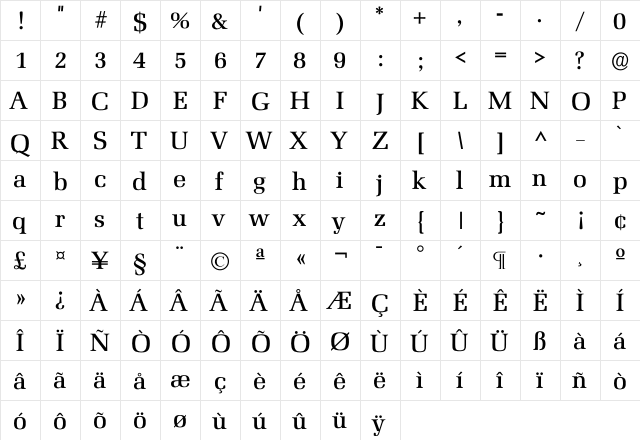
Marsei Medium
Design Context for Marsei Typeface
Marsei takes a measured approach to typography — its balanced proportions and neutral character make it a reliable workhorse for both digital and print work.